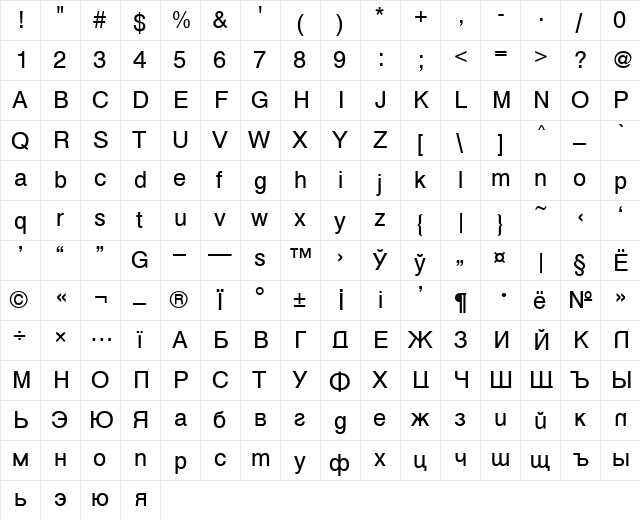
Vanta Medium Plain
Design Context for Vanta Medium Typeface
Vanta Medium is a composed and adaptable typeface that performs quietly and consistently across a wide range of design contexts.